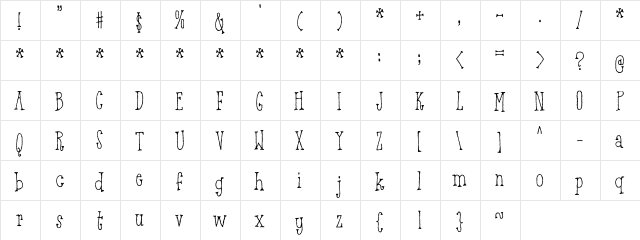
Breathtaking Beauty DEMO Regular
| Foundry | Jakob Fischer / pizzadude.dk |
| Designer | Jakob Fischer / pizzadude.dk |
Design Context for Breathtaking Beauty DEMO Typeface
Breathtaking Beauty DEMO is a composed and adaptable typeface that performs quietly and consistently across a wide range of design contexts.